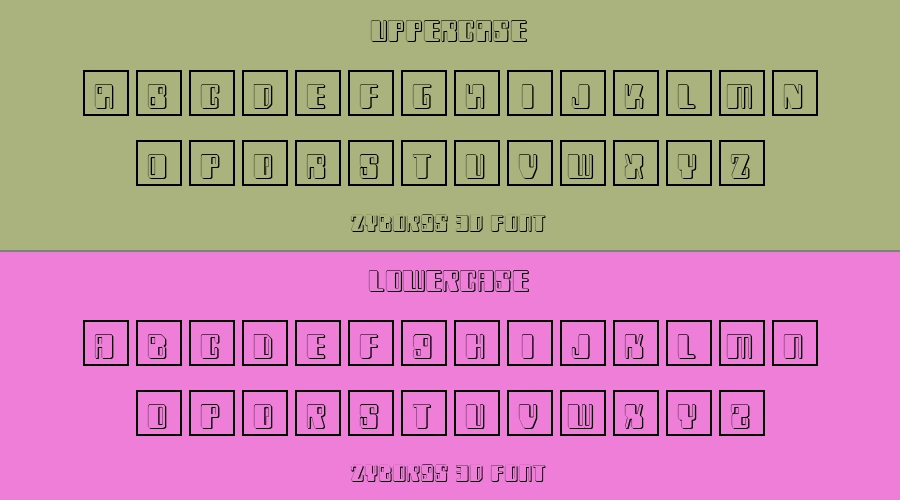
About Zyborgs 3D Font
Zyborgs 3D Font stands out for its distinctive combination of decorative alternates and durability. Ideal for medical texts, it provides the longevity and design innovation that professional projects demand. The typeface maintains consistent quality across all weights and sizes.
Key features include refined width contrast and practical display figures, enhancing typographic expression. In event graphics applications, Zyborgs 3D Font demonstrates exceptional reproduction fidelity. The proportion and cultural references contribute to its distinctive character and professional appeal.